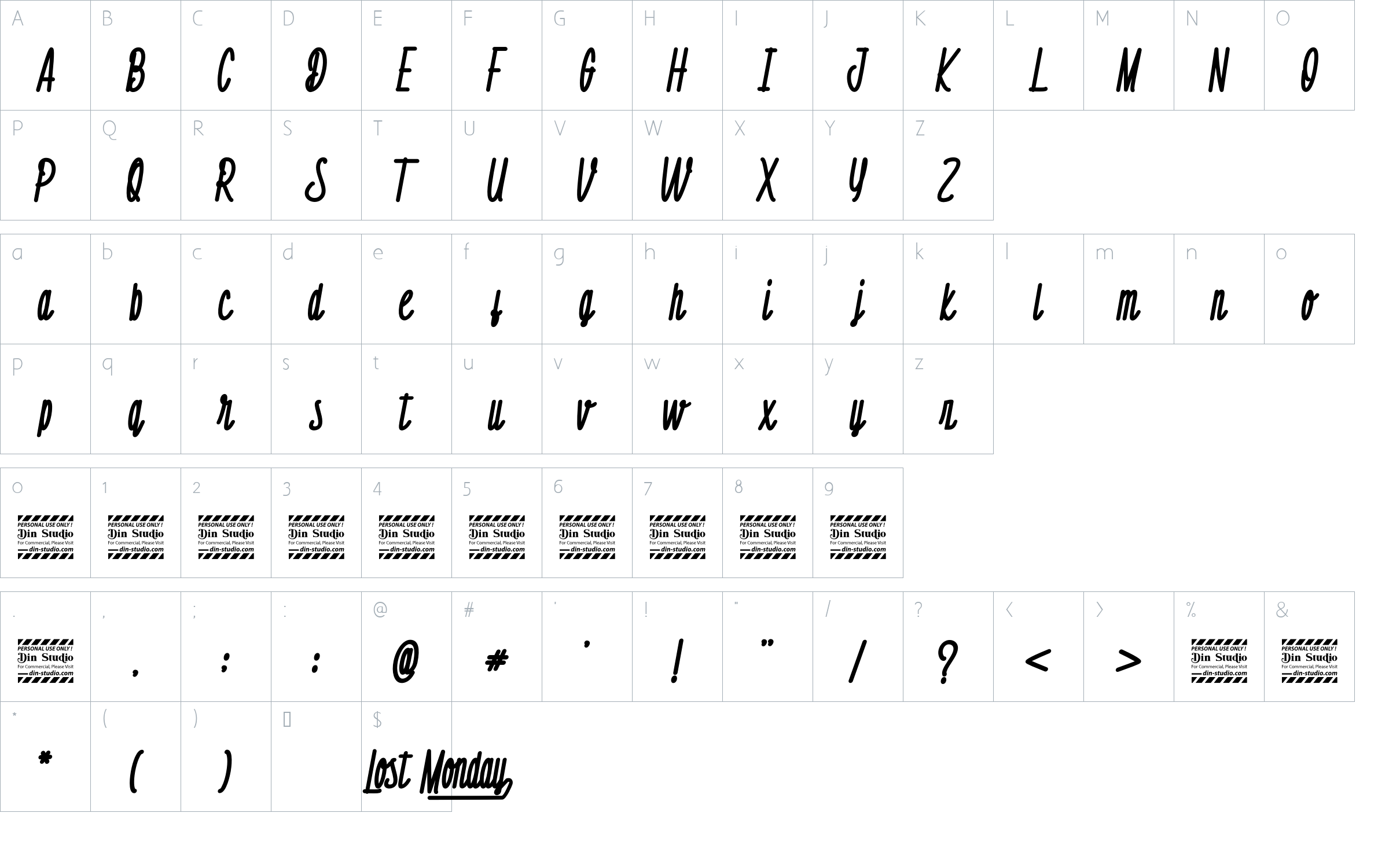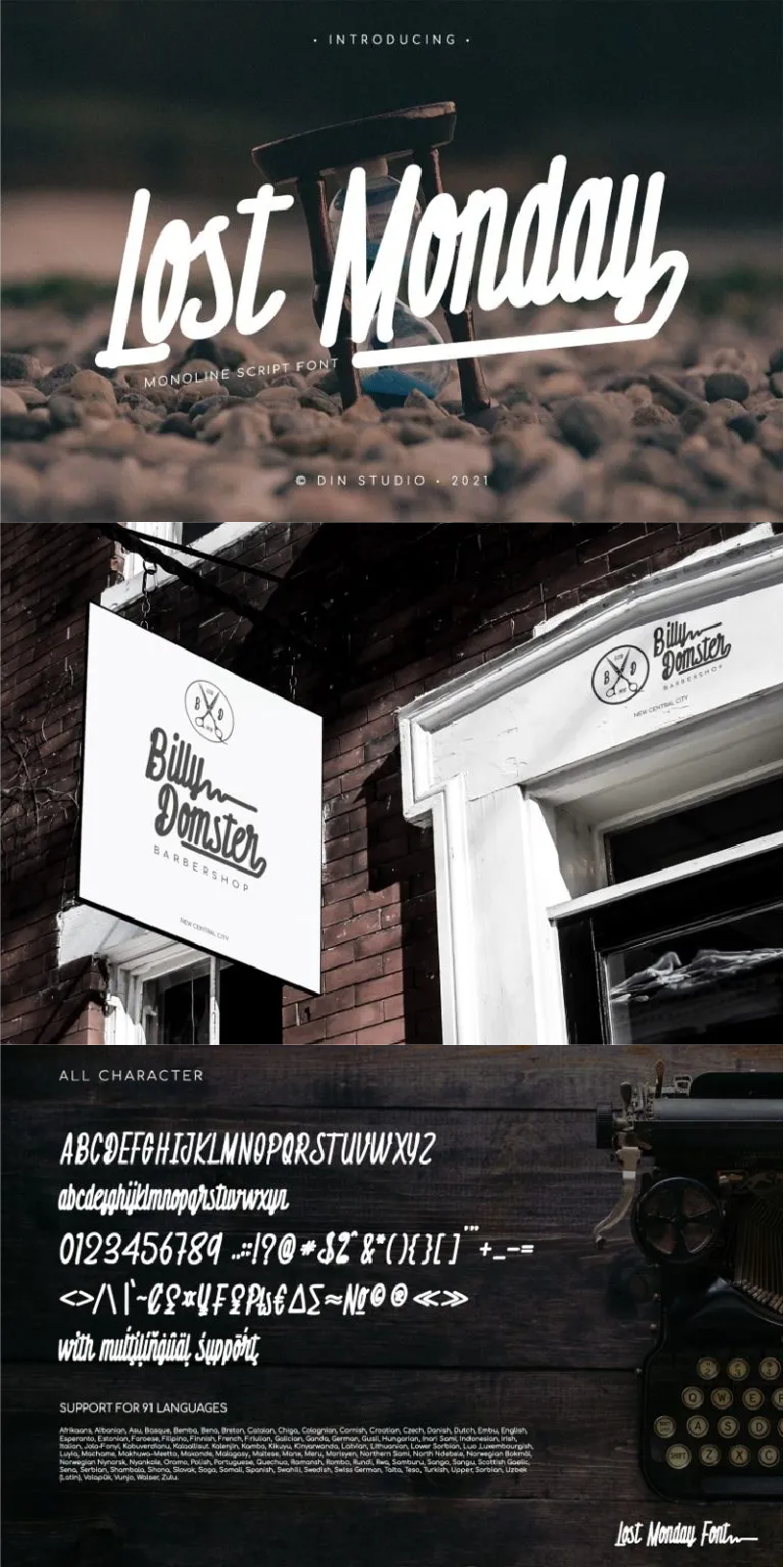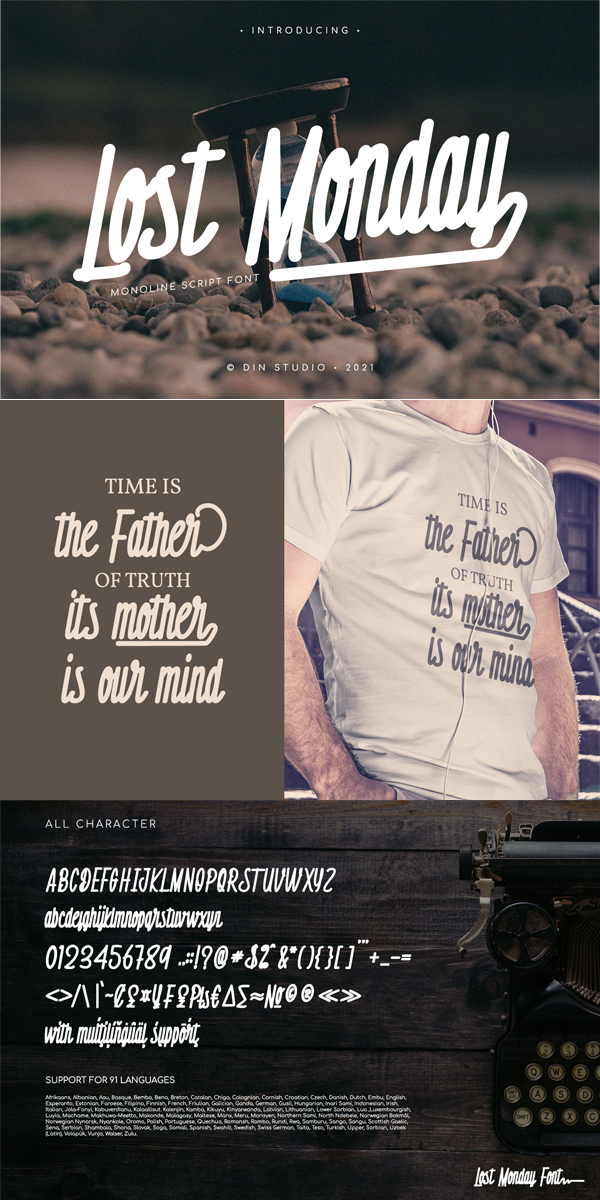
Lost Monday Font
About Lost Monday
Lost Monday – A Monoline Font.
This is a different level font. A modern and stylish handcrafted monoline font that’ll make your audience swoon and enhance your projects. Every stroke and curve was created to capture the essence of simple but style. With stylish and passion edged into every curve and twist of this brush font – you’ll be sure to boost your sales and make the best impressions. Use it for headings, logos, business cards, printed quotes, invitations of all sorts, cards, packaging, and your website or social media branding.
Lost Monday includes Multilingual Options to make your branding globally acceptable. See the previews above to get some inspiration on how you can use them.